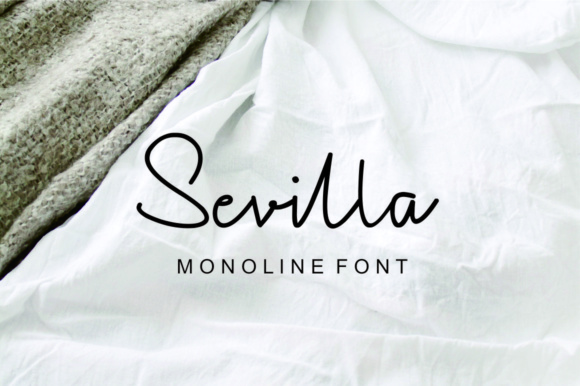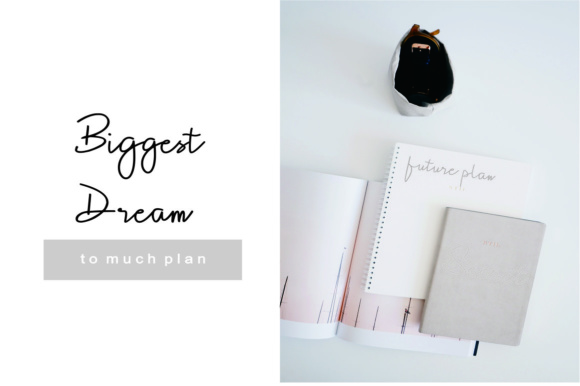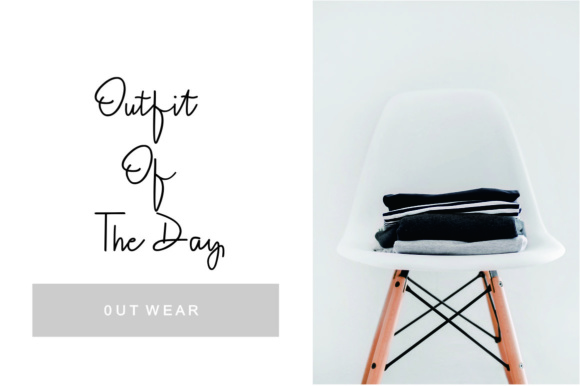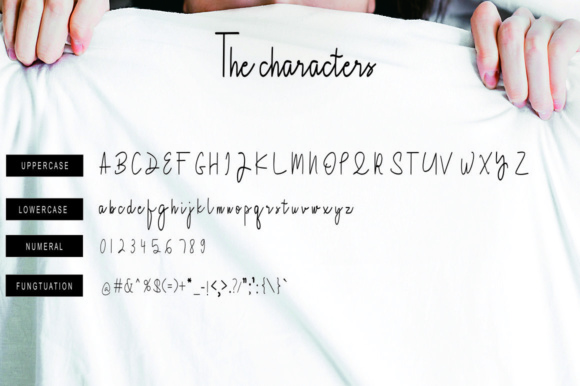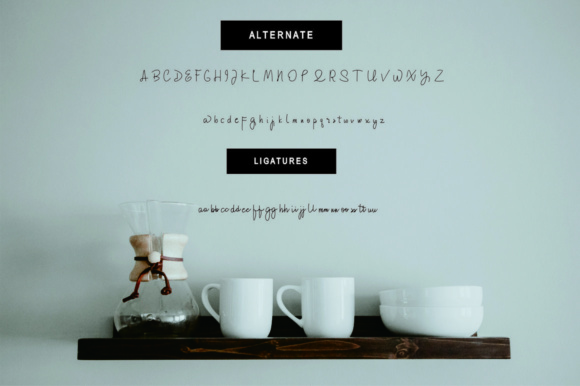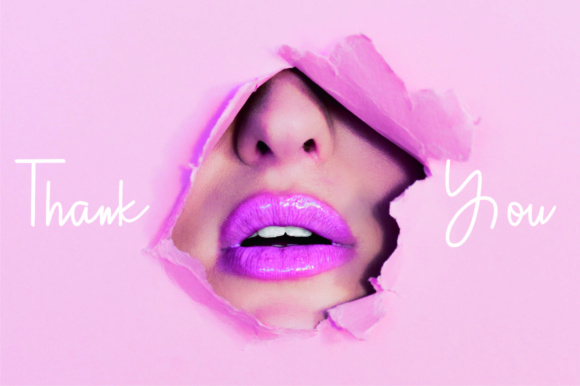
HomeScript FontsSevilla Font Script Fonts Sevilla Font FacebookXPinterestWhatsApp Sevilla Font Poster 2 Sevilla Font Poster 3 Sevilla Font Poster 4 Sevilla Font Poster 5 Sevilla Font Poster 6 About Sevilla Font Sevilla is a beautiful mono line font. It has a good readability and a striking look. DOWNLOAD ON CREATIVE FABRICAThis font is sold and delivered by Creative Fabrica. Font Canyon may earn a commission if you buy through this link. People also explored Butterfly Hellyna Font Battalisde Font Welcome Students Font Mariposa Font Datelight Font Brighton Script Font Shamilove Font Pearls in the Ocean Font Selamyts Font 335 0 TagsSevilla Font Previous articleNatash Sena FontNext articleHardino Font LEAVE A REPLY Cancel reply Comment: Please enter your comment! Name:* Please enter your name here Email:* You have entered an incorrect email address! Please enter your email address here Website: Save my name, email, and website in this browser for the next time I comment. Personal Use Free Catandra Script Personal Use Free Read more about this font Gupis Personal Use Free Read more about this font Still Time Personal Use Free Read more about this font Baby Magnolia Personal Use Free Read more about this font BLOG Where to Buy American Fonts Online in 2024 Where to Buy American Fonts Online: The Ultimate Guide for 2024 Looking for the perfect American font to elevate your design projects? You're in the... How to Cut Any Font on Cricut: Convert a Font to SVG (Free) The 10 Best Handwriting Fonts to Add Personality to Your Designs How to Install and Use Fonts on Windows, macOS, and Web Projects